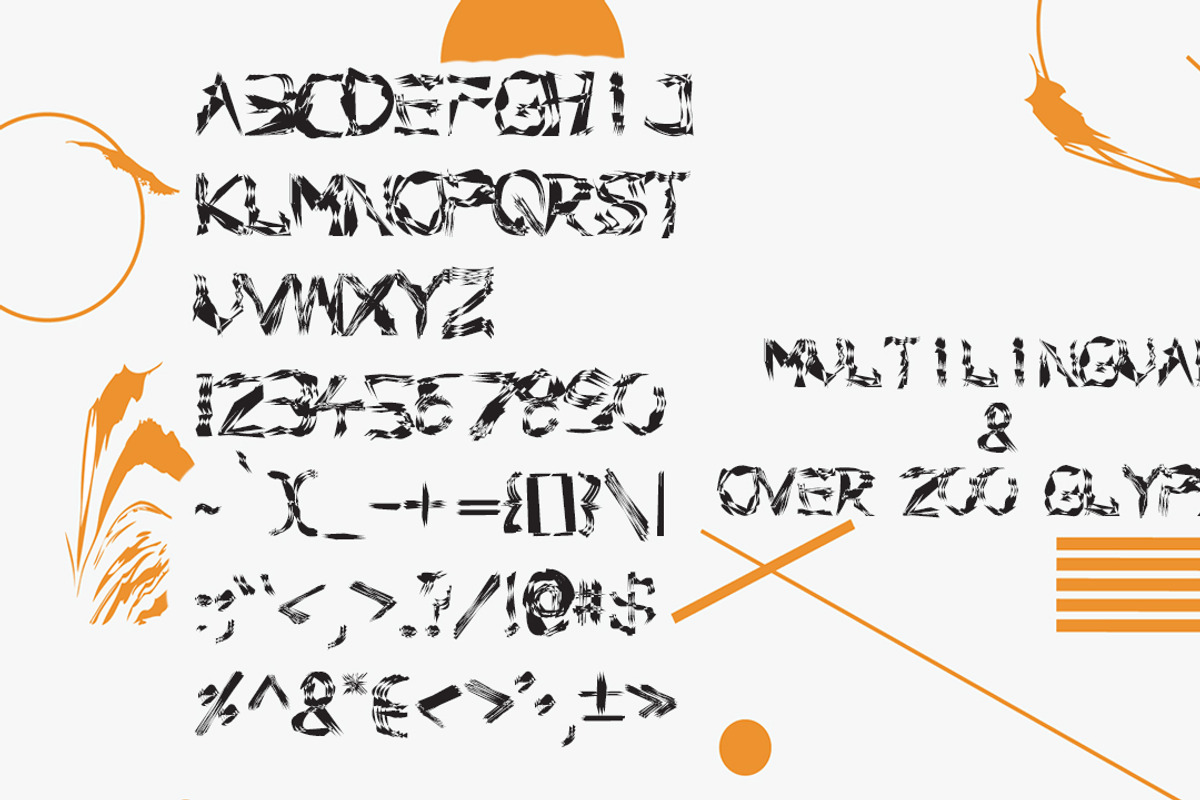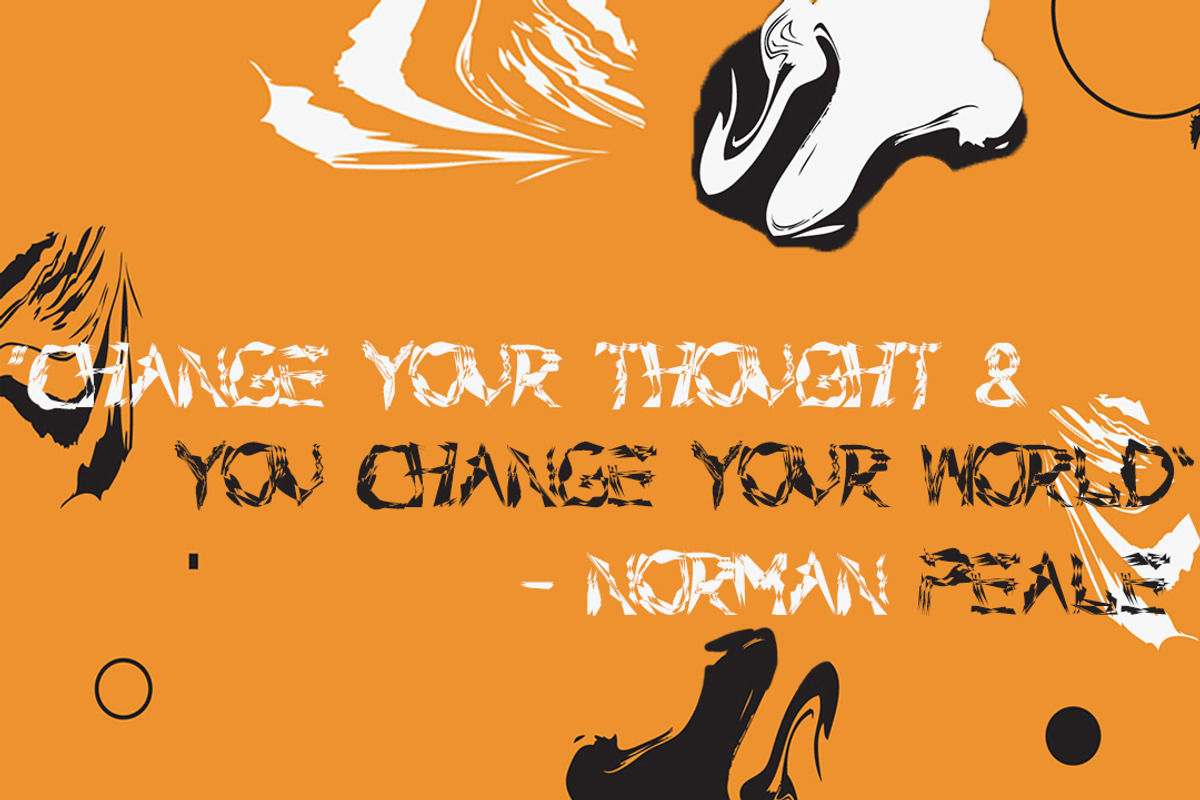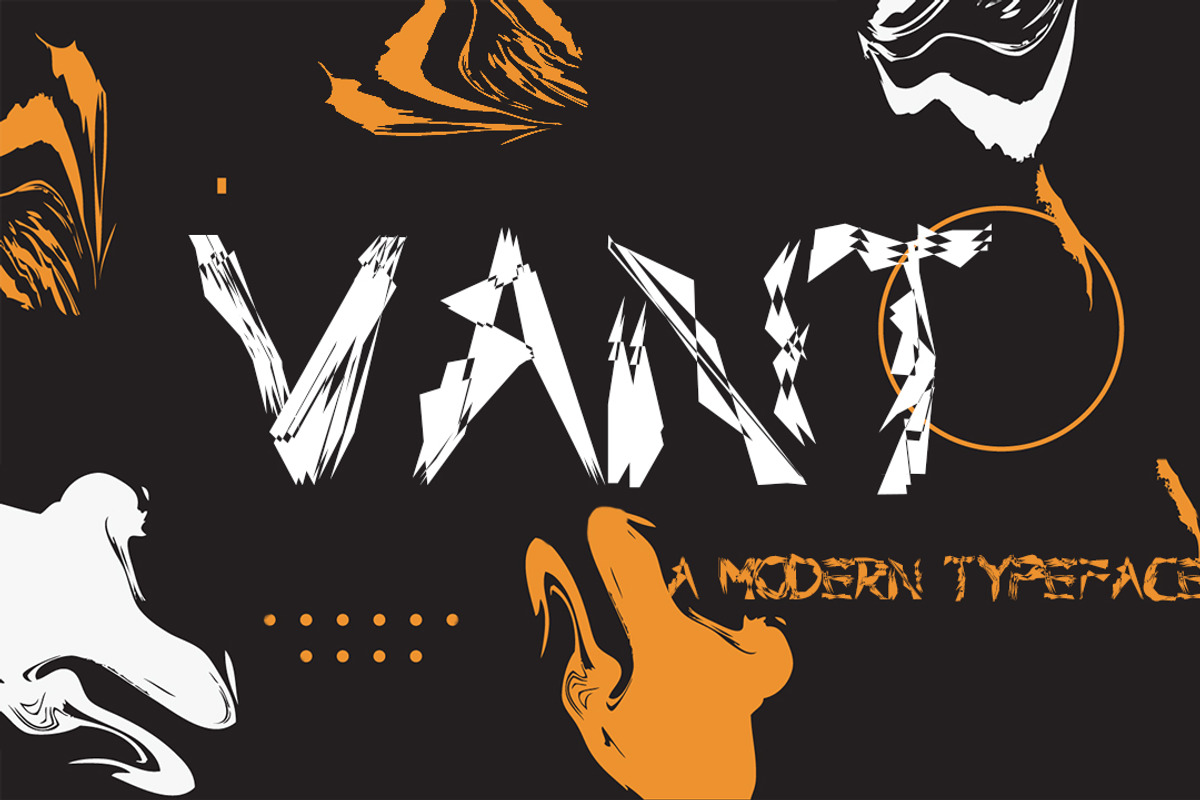
VANT Typeface
VANT Typeface by Alpha Mike Foxtrot is a font selected for branding, posters, packaging, typography.
Why VANT Typeface is worth a look
VANT Typeface by Alpha Mike Foxtrot fits naturally into Branding, posters, packaging, typography.